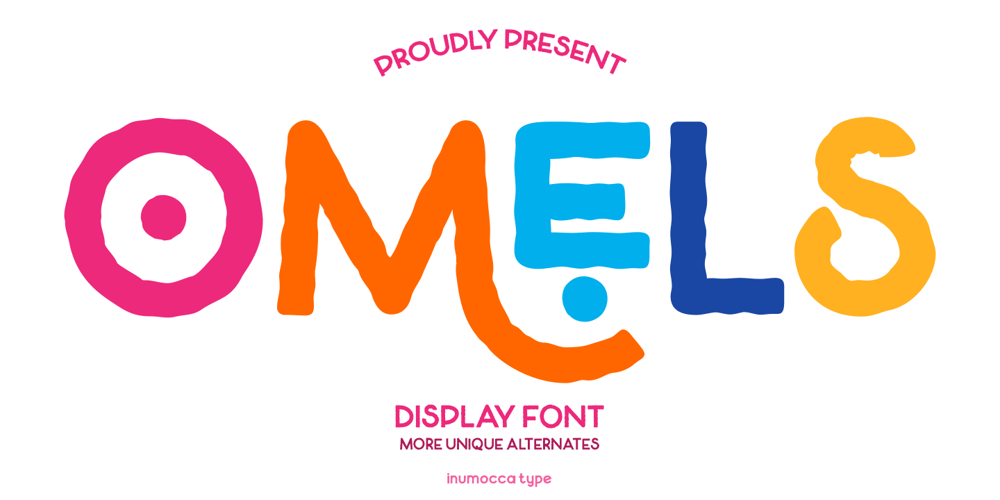
Omels Font Family was designed by Inu Mocca and published by Inumocca. Omels contains 1 styles and family package options. Omels Display Font, fun and joyful character but strong and dynamic.simplel for access of Unique Alternates Exellent typeface to use for covering your Project, like Branding, Movie Title, Headline Letter, Bookcover or Book Content, Magazine cover, Poster, Quotes Lettering, Logos, and more your project design.- Unique glyphs- Multilingual Characters Support- UPPERCASE- Lowercase- Numeric- Symbol- Punctuation Character- Stylistic Set Alternatesinumocca type